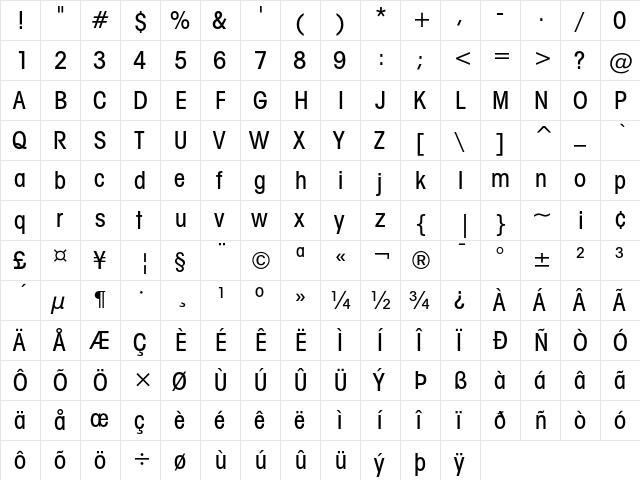
ITC Avant Garde Gothic Medium Condensed
Design Context for ITC Avant Garde Gothic Typeface
ITC Avant Garde Gothic has the quiet confidence of well-executed sans-serif typography: versatile, unobtrusive, and dependable at any size. The condensed width makes it efficient for tight spaces without sacrificing legibility.
Font Pairing: Works well alongside a characterful serif or display font that can carry the expressive load while ITC Avant Garde Gothic handles the functional copy.
Pro Tip: Try ITC Avant Garde Gothic in all-caps with moderate tracking for navigation and label copy — it performs well in systematic UI contexts.